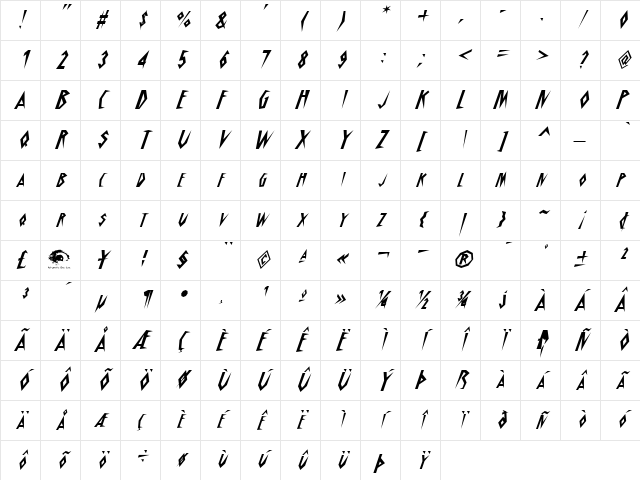
Schrill AOE Oblique Free Font
Schrill AOE Oblique
Design Context for Schrill AOE
Schrill AOE is a composed and adaptable typeface that performs quietly and consistently across a wide range of design contexts. The slanted form adds forward momentum and visual energy.
Pro Tip: Use Schrill AOE for emphasis, pull quotes, and subheadings where its slanted energy can add rhythm to the layout.